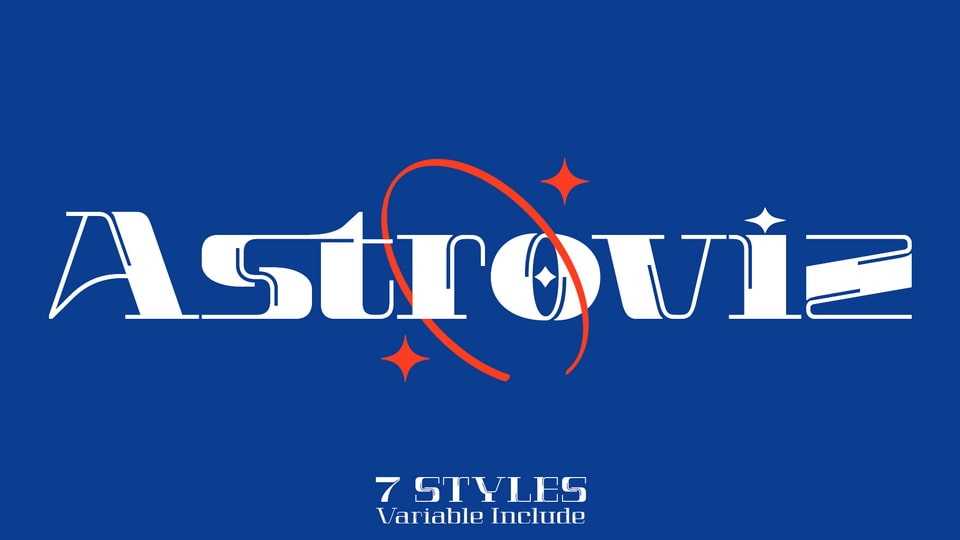
Download Astroviz font, more than just a typeface it’s a design statement. Its deep ink traps are the defining feature that sets it apart, making it an ideal choice for creating captivating and memorable headlines that demand attention and leave a lasting impression.
Designer: Jehoo Creative